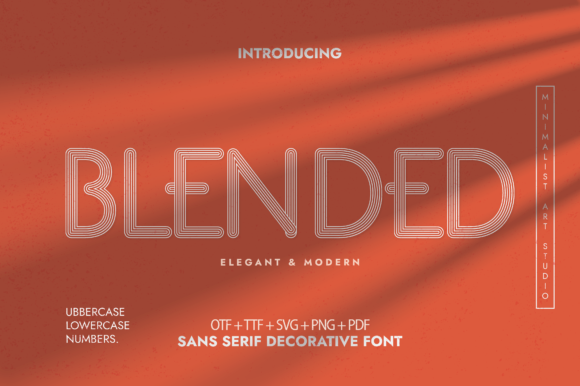
Introduction to Blended Font
Blended is an elegant and cool looking decorative font.
Expertly designed to make your creation look out of this world, this font will look gorgeous on a variety of ideas This font is ideal for writing web designs, business cards, or pretty much anything else that requires a unique touch.
Key Features of Blended Font